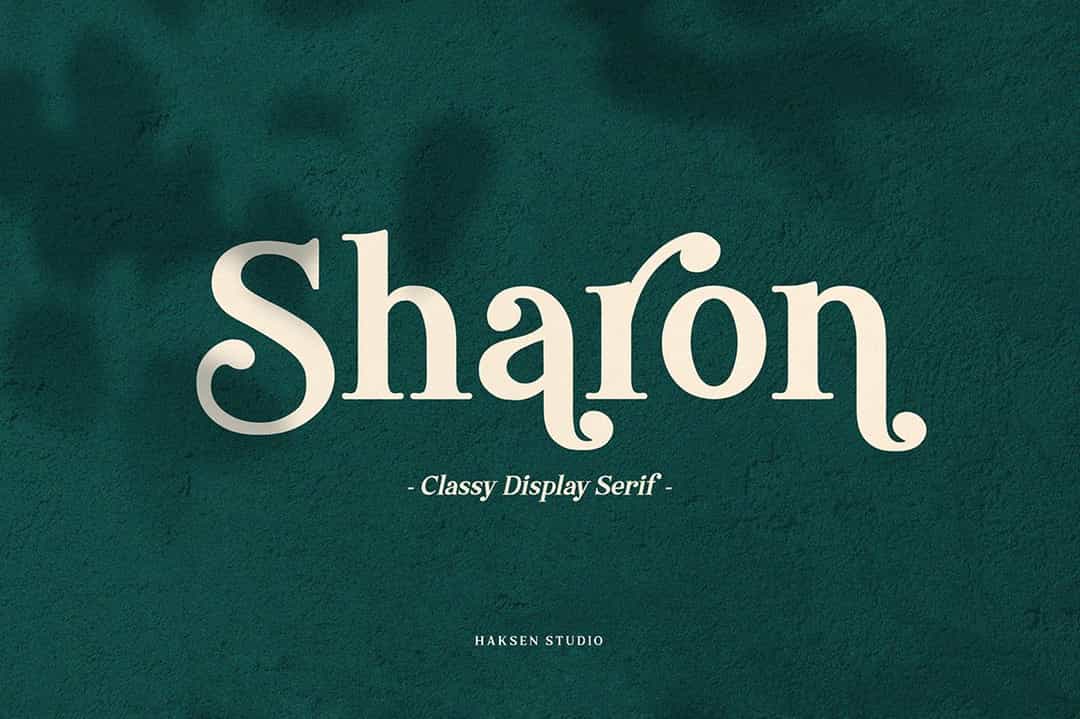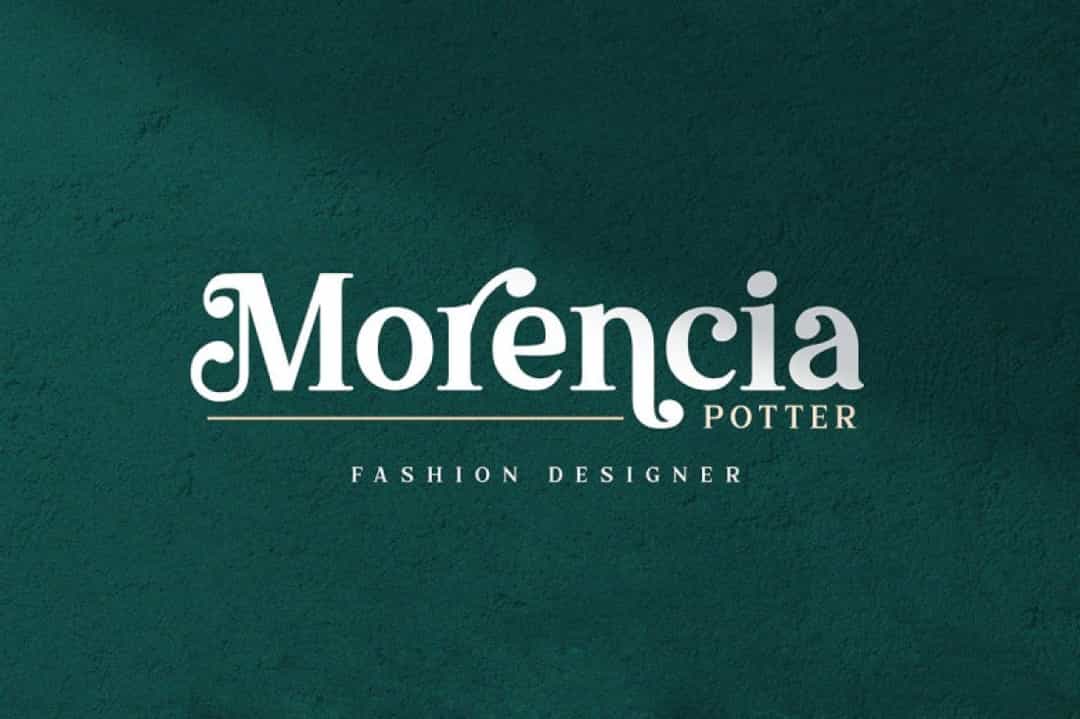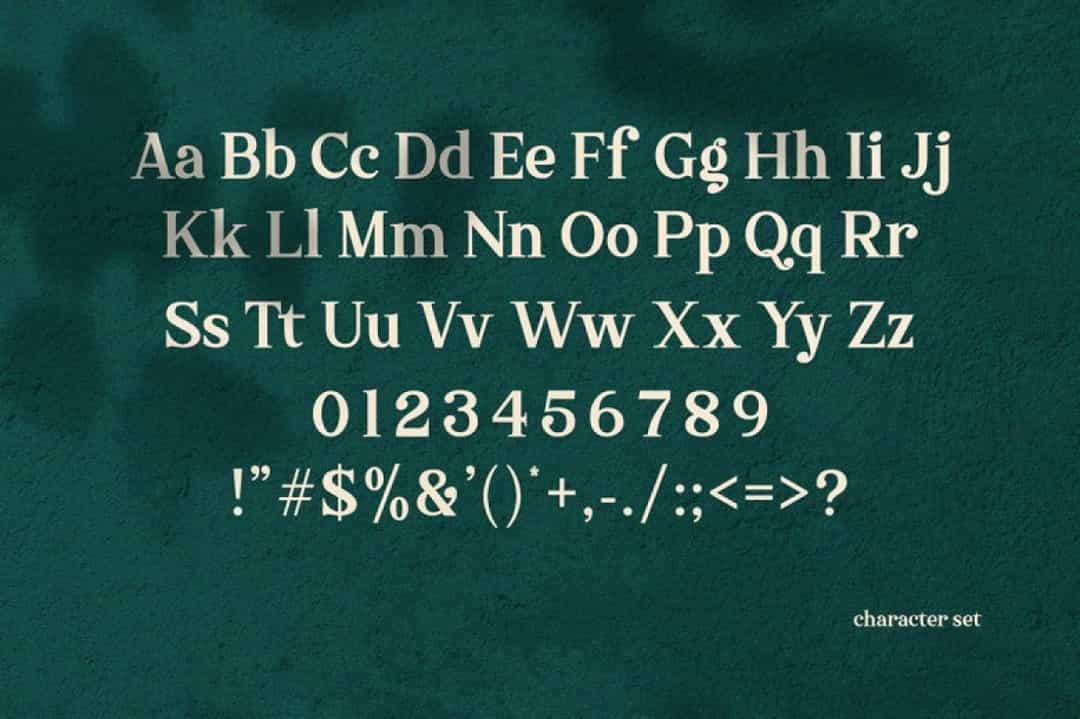
Sharon Font is a modern serif design with well-balanced uppercase and lowercase styles that looks beautiful when combined. Offering multiple font styles in uppercase and lowercase formats creates stunning designs. Perfect for posters, headlines, logos packaging T-shirts etc.